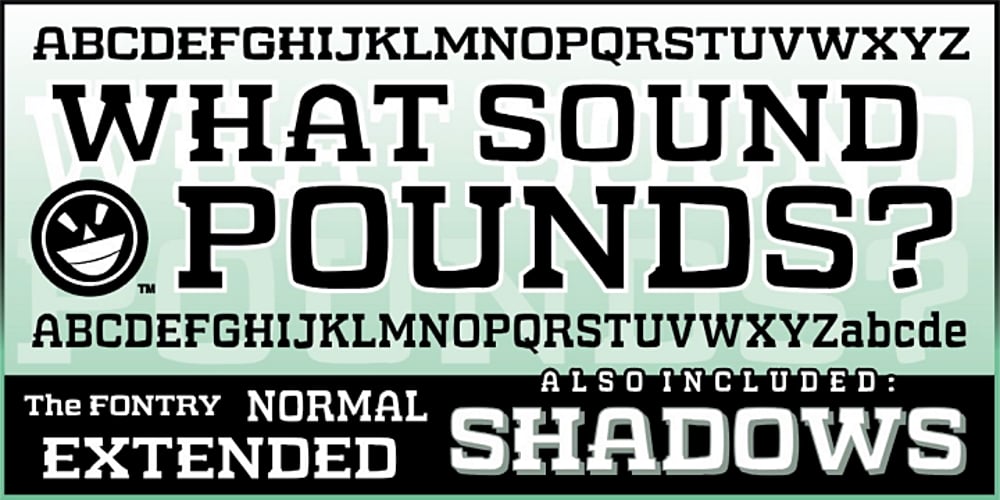
WHAT SOUND POUNDS? Font Family was designed by published by The Fontry. WHAT SOUND POUNDS? contains 13 styles and family package options. You’ll want to call it many things. You’ll swear it’s a sport font in distress. You’ll imagine it emblazoned on the flanks of battered starships. You’ll wonder what niche, what genre it was ever meant to occupy. Is it a display font? Text? Is that a noise in your ear? A sounding pound against your thoughts? Ask what you think of that sound and it’s potential to melt you where you stand, and you’ll find this very font staring back on you. After a long, hot summer, this genre-siphoning face has finally been upgraded. WHAT SOUND POUNDS? is a family of 4 fonts now, with the addition of an extended version and two contoured drop shadow flavors that are guaranteed to leave you picking at your pieces. A layering feature, accessed by switching between Bold and Italic Styles, allows for instant color effects. And there’s been some complaints about the “parasites” growing off the sides of only 3 of the uppercase letters. Those who hate them want them gone. Those who like them want more. Both camps can now find satisfaction. Using OpenType Features or your Character Map will allow you to pick and choose the style you want.